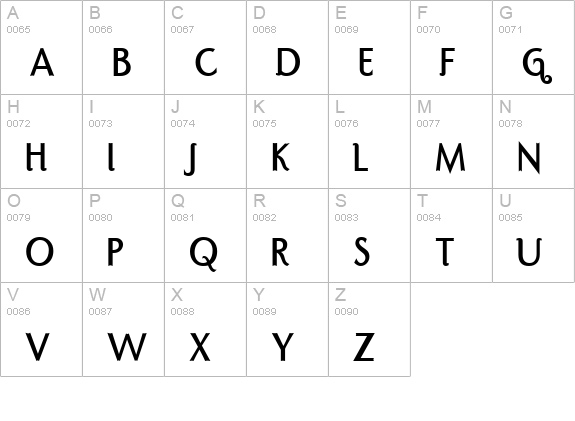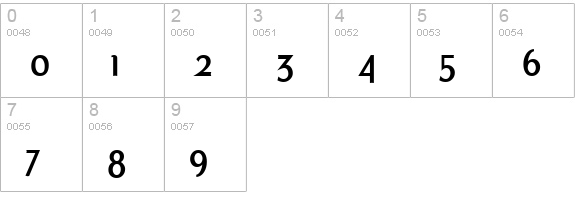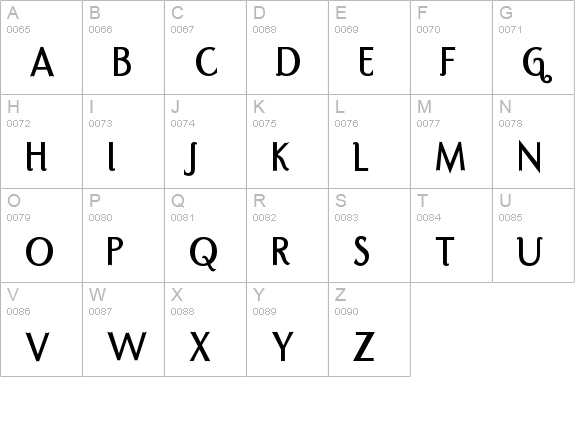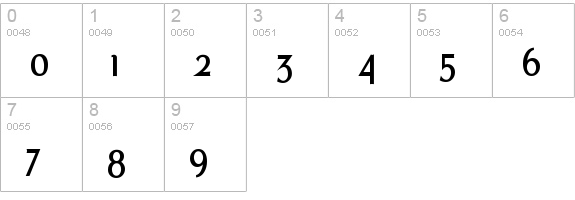
Port Credit Bold is a strong, high-contrast variant in the Port typeface family \xE2\x80\x94 well suited to headlines, attention-grabbing titles, and strong calls-to-action.
Introducing Port Credit Bold font, a versatile and eye-catching typeface perfect for a wide range of design projects. This modern and stylish font features bold and confident letterforms that make a strong visual impact. Whether you're designing a poster, logo, branding materials, or any other creative work, Port Credit Bold is sure to make your text stand out. The best part? Port Credit Bold font is completely free to download at FontsMarket.com. This means you can enhance your designs with this striking typeface without any cost. Don't miss out on the opportunity to add Port Credit Bold to your font collection and take your projects to the next level. Download it today and start creating stunning visuals that grab attention and leave a lasting impression.